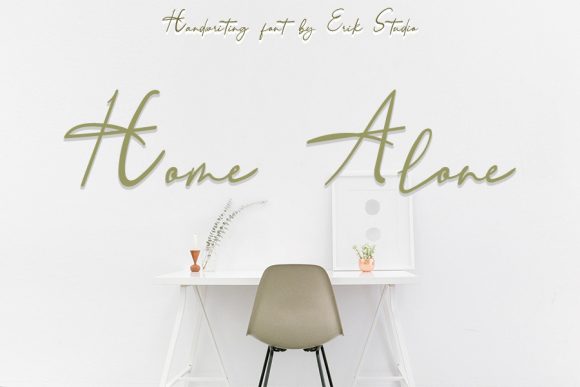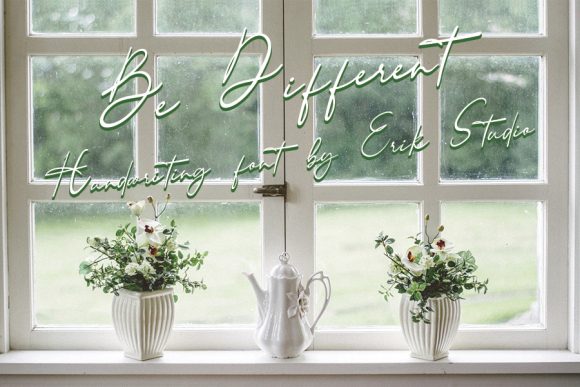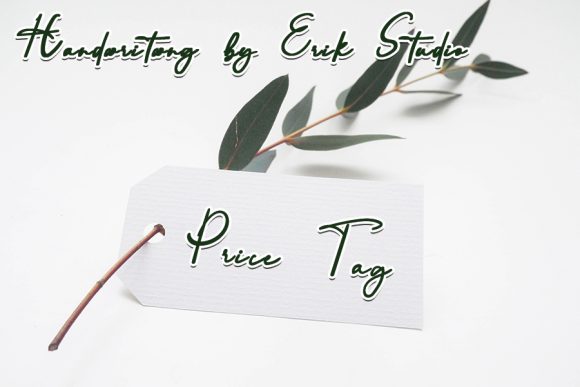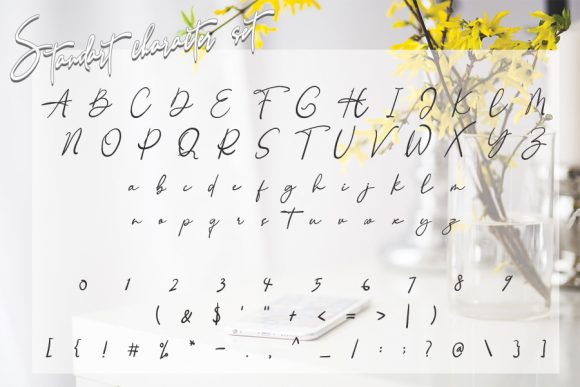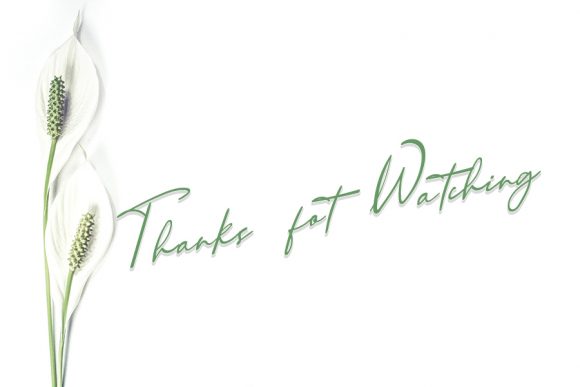
Home Alone Font
About Home Alone Font
Home Alone is a simple and flowing handwritten font. It is defined by smooth curves and is perfect for fashion branding or editorial designs. Add it confidently to your projects, and you will love the results.